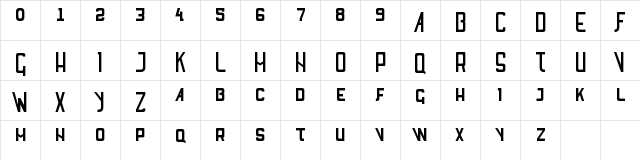
SL Thank You For The Venom Regular
Design Context for SL Thank You For The Venom Typeface
SL Thank You For The Venom offers clean, dependable letterforms without strong stylistic allegiance, making it a practical choice for designers who need flexibility.
Pro Tip: Use SL Thank You For The Venom in both headline and body roles to test its range before committing to a single application.